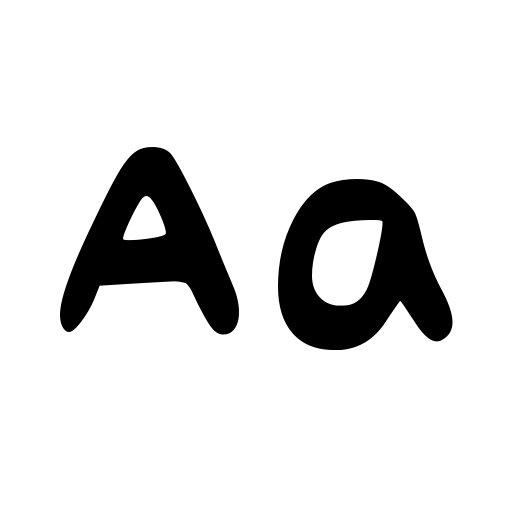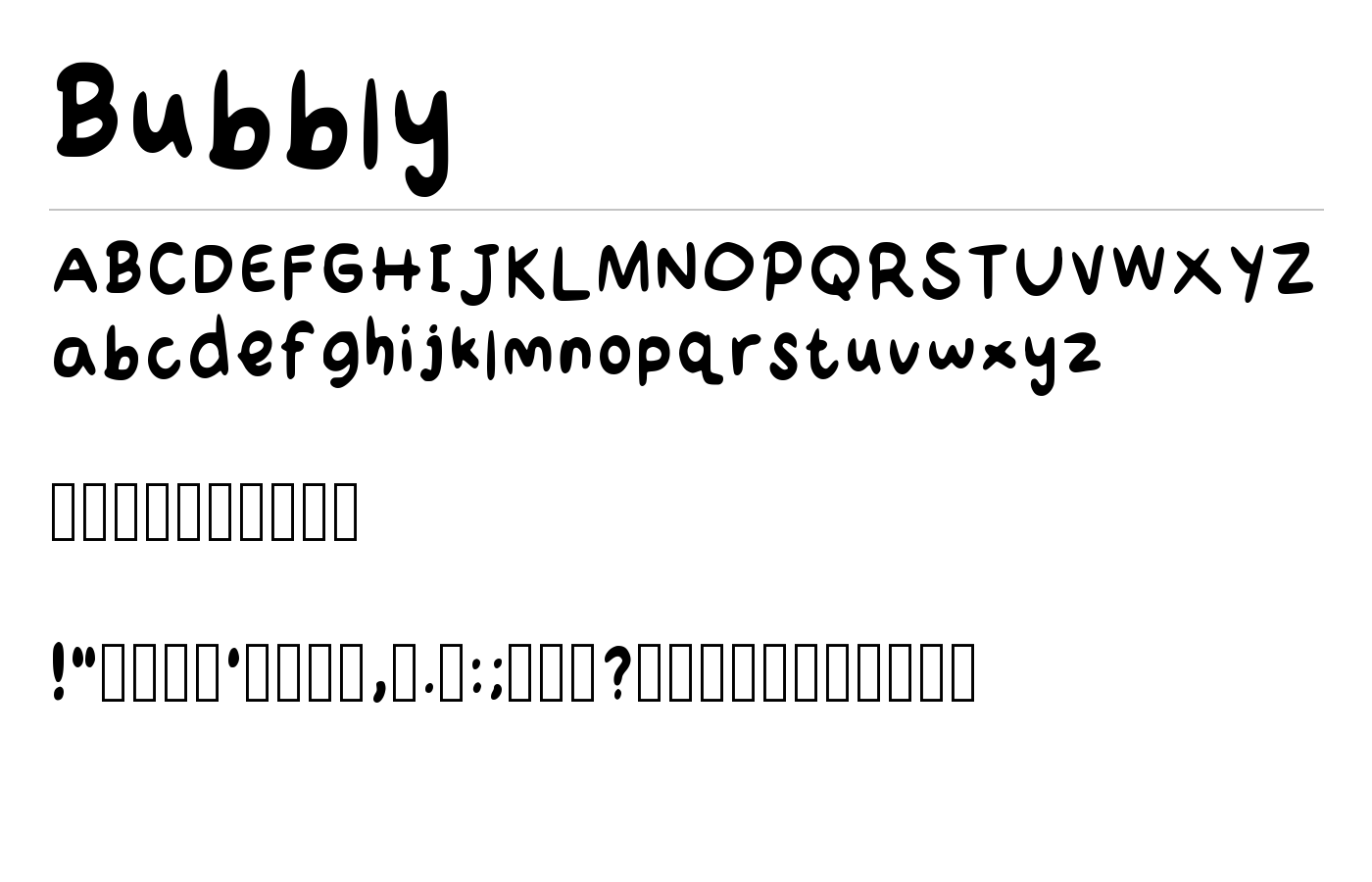
Bubbly is a playful, rounded sans-serif font with a friendly, hand-drawn feel. Its thick, soft strokes and casual letterforms make it perfect for projects that want to convey warmth and approachability, such as children’s books, informal invitations, and fun branding. This font works well in headlines and short texts where a lively and cheerful tone is desired.
Bubbly Font